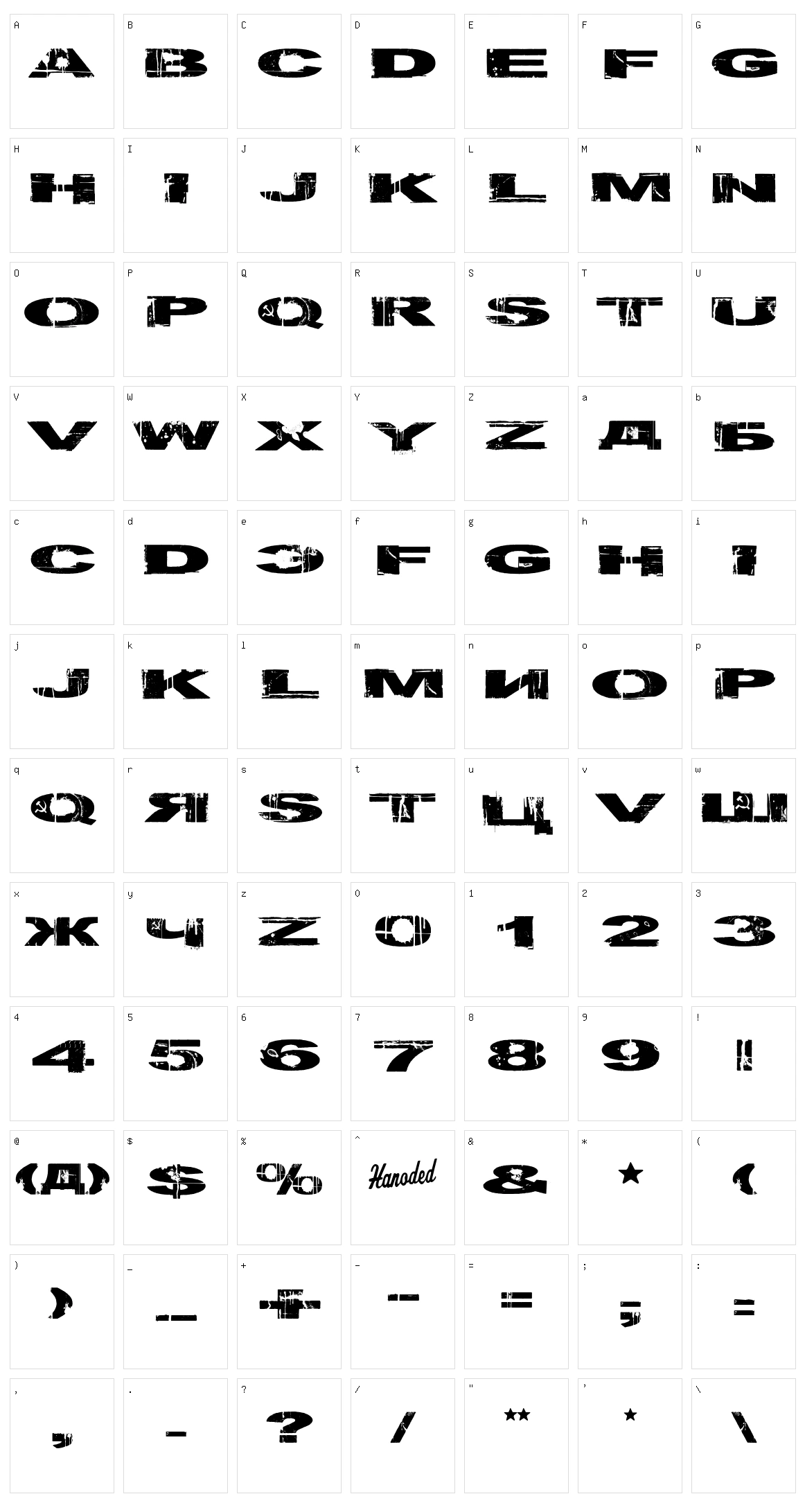
The free font Gulag Decay is carefully designed by Samyuli, showcasing a thoughtful balance of creativity and usability and falls under the Russian font style. When you download the ZIP file, it contains only 275.42 KB of font files, making it lightweight and quick to download. Please review the license details below to understand permitted usage and distribution rights. If license information is not available, we recommend using this font for personal projects only or contacting the author directly for commercial usage permissions.